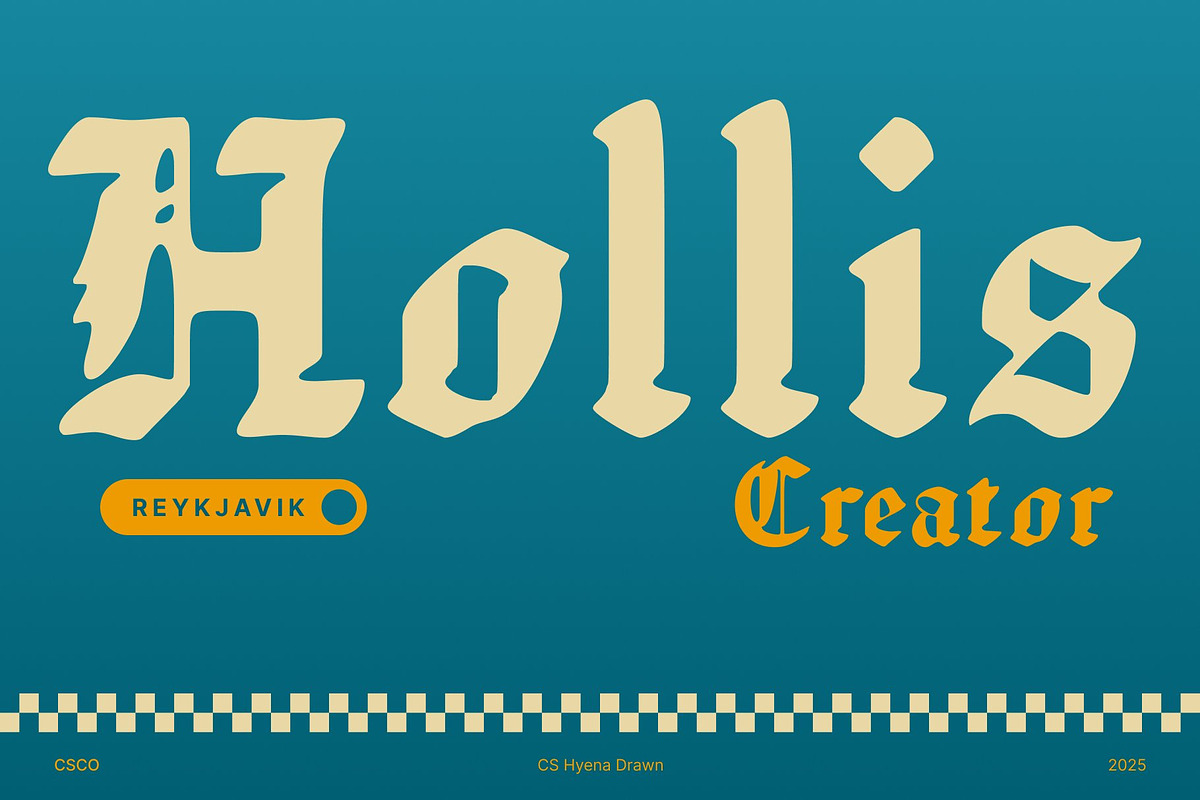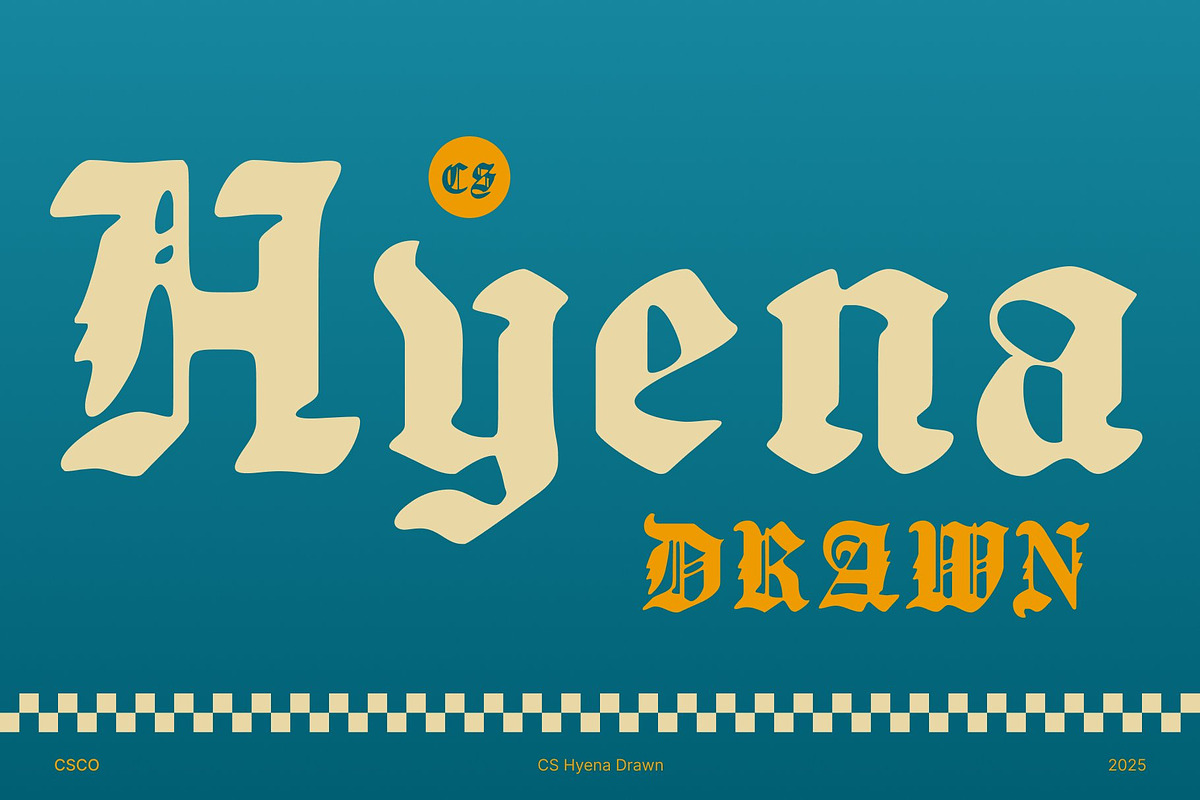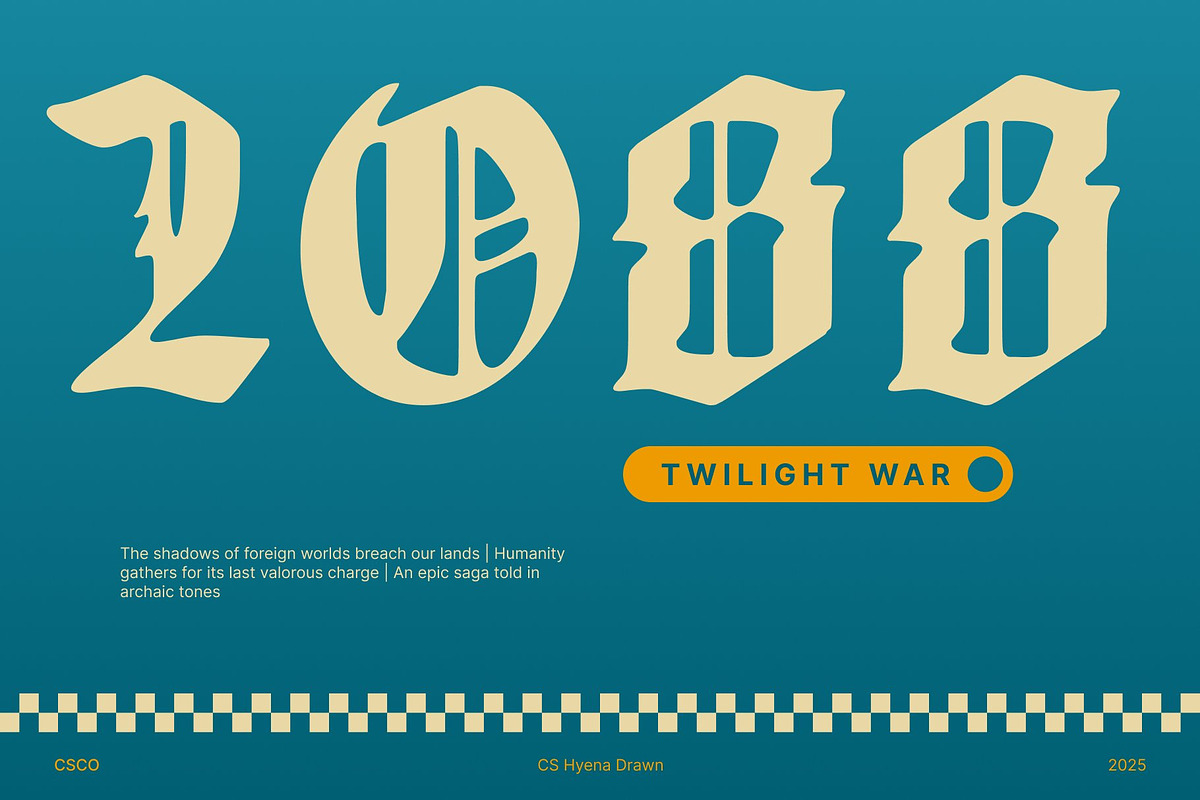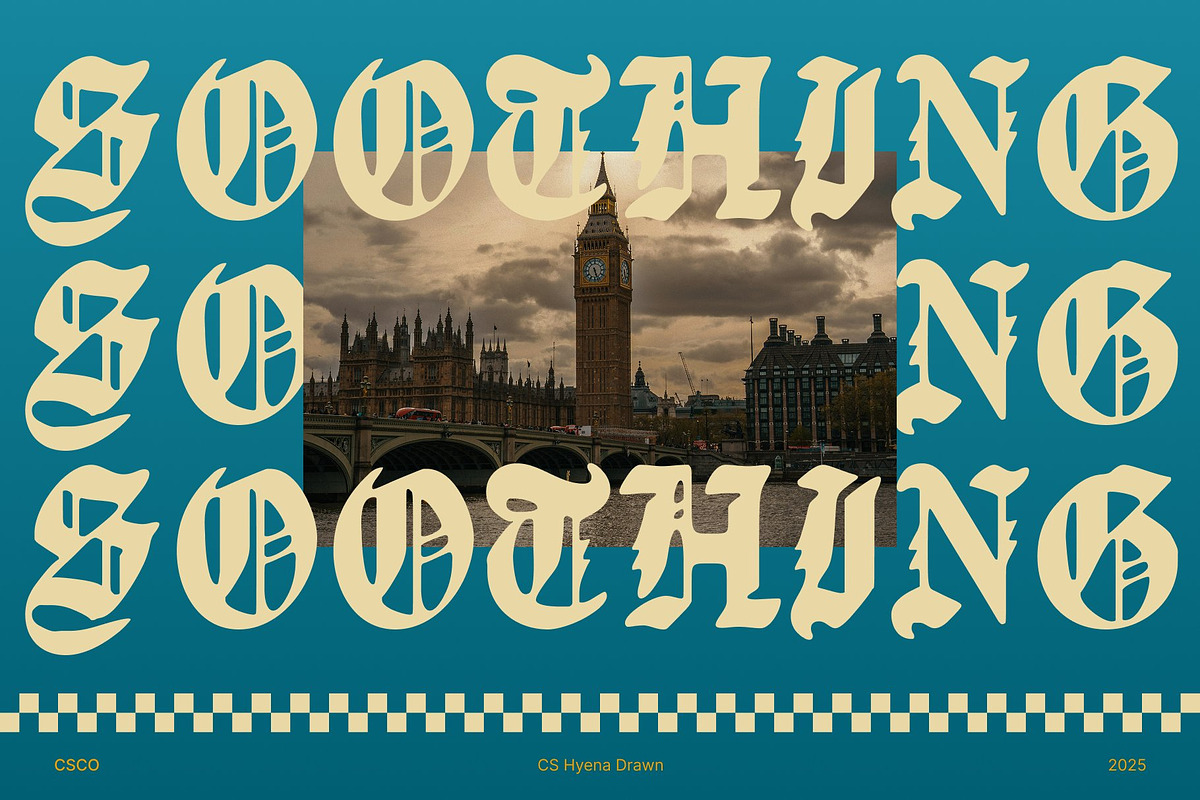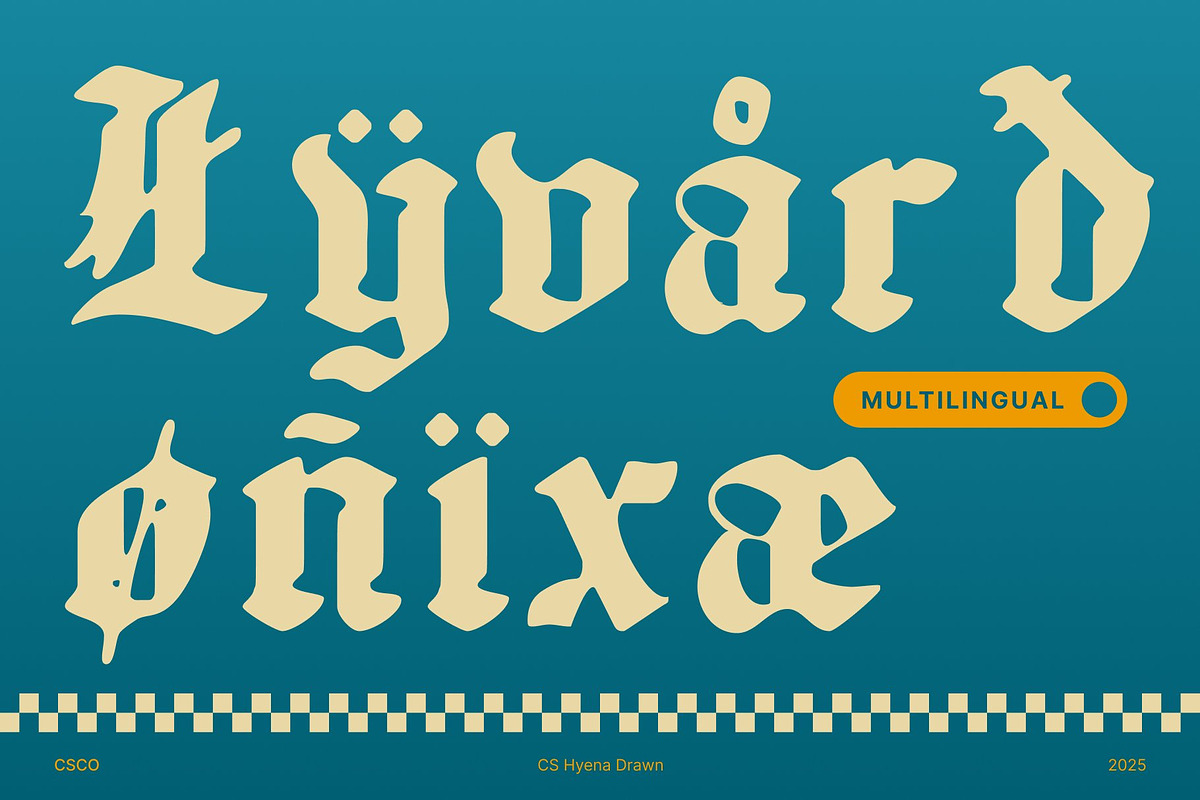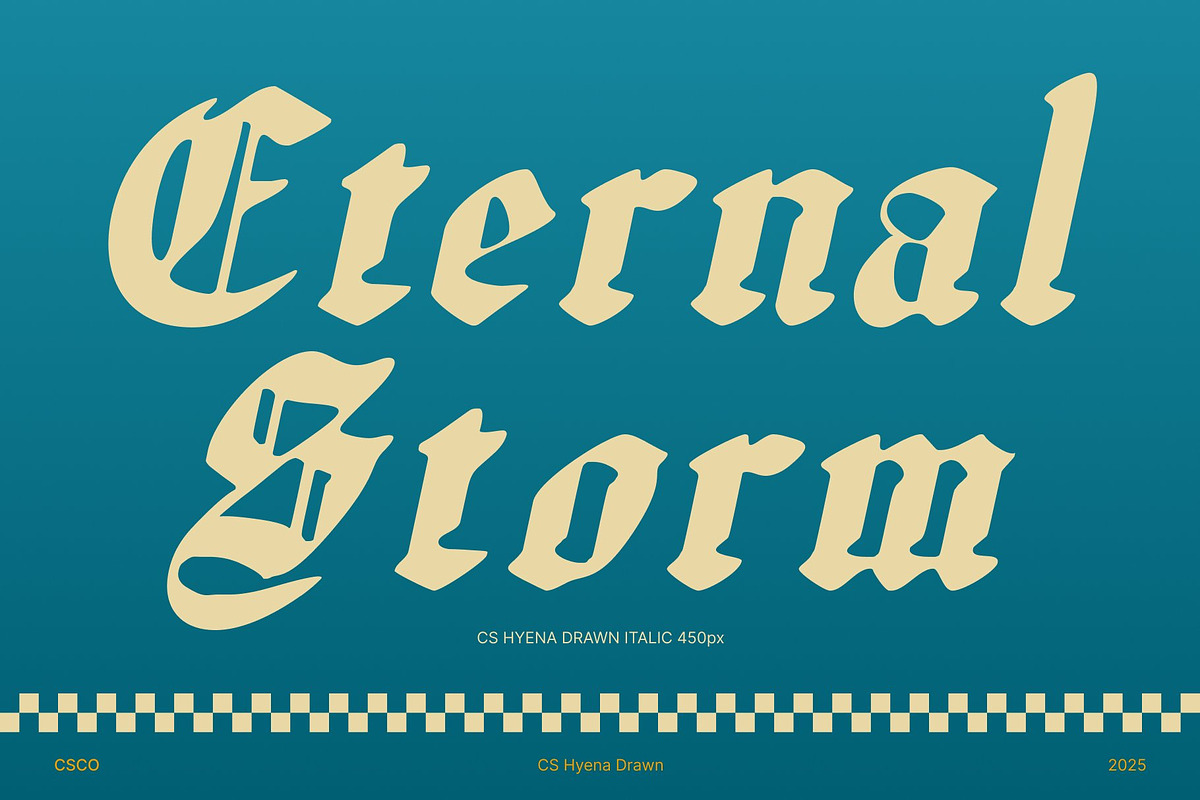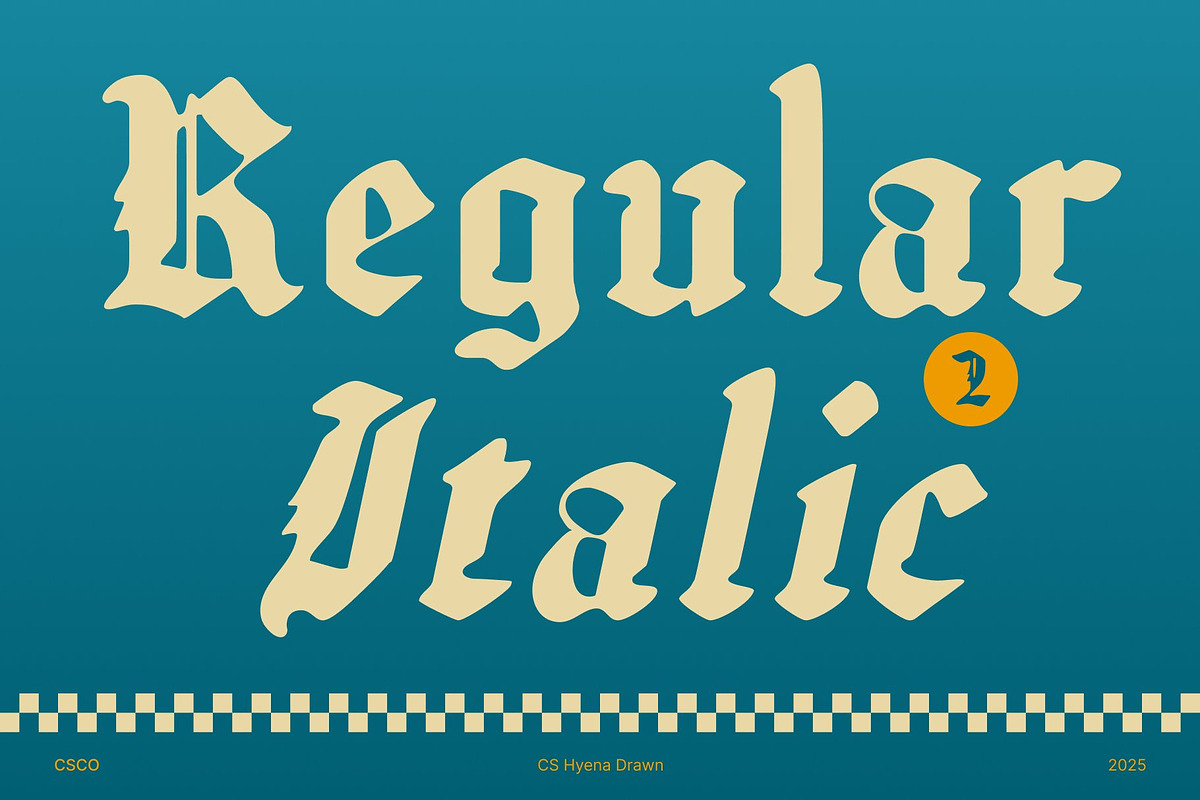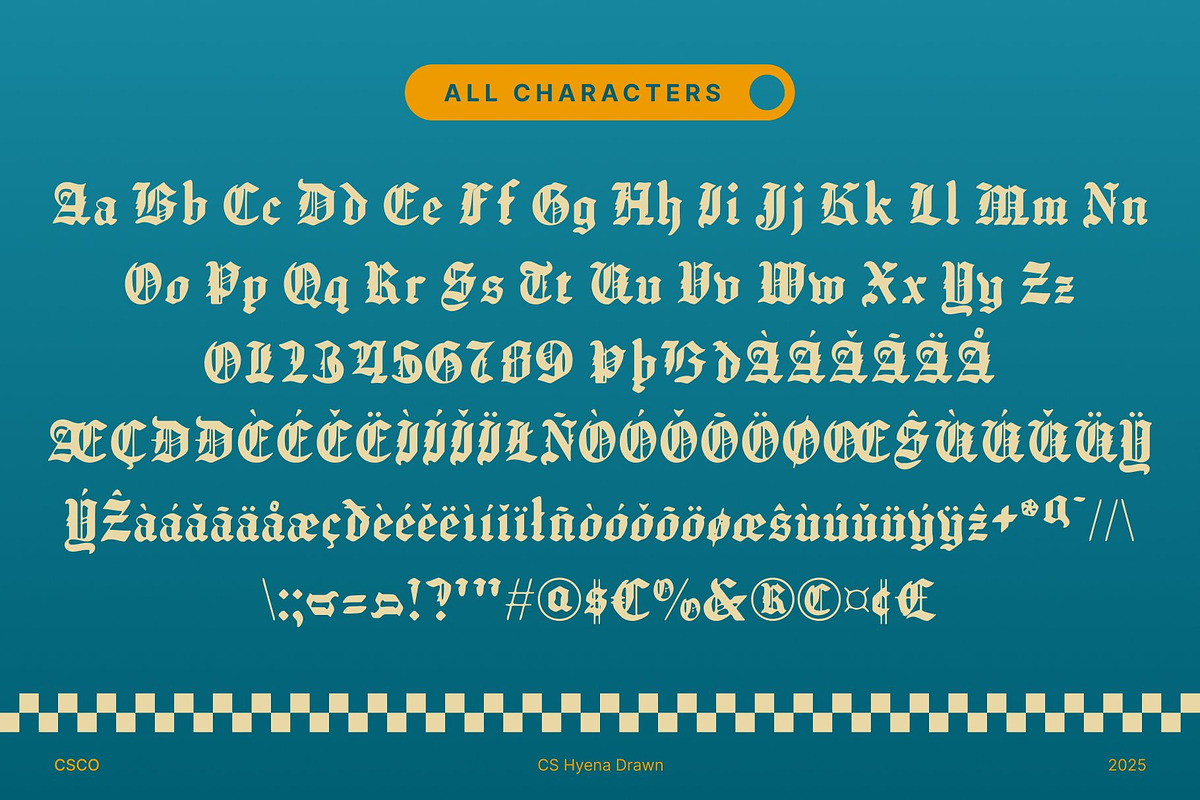
CS Hyena Drawn
CS Hyena Drawn – Decorative Blackletter with Handcrafted Dramatic Flair
Bold Blackletter Strokes with Dramatic Presence This is a decorative Blackletter font built to make a strong, commanding impression. Its bold, angular strokes convey authority and drama, while the classic Blackletter forms provide a timeless, historic elegance. Each letter captures attention, giving your designs a sophisticated yet edgy feel that resonates with tradition style.
Hand-Drawn Texture for Unique Artistic Character The drawn effect adds a handcrafted quality to this font, transforming each character into a piece of expressive artistry. Subtle textures and organic imperfections introduce depth and personality, softening the bold structure while maintaining visual strength. This handmade nuance makes the font feel dynamic and alive.
Perfect for Book Covers, Posters, and Branding This font thrives in creative, high-impact applications where visual storytelling is key. Its dramatic, bold forms are ideal for book covers, editorial layouts, posters, branding, and packaging that need a memorable, expressive edge. The combination of Blackletter elegance and hand-drawn artistry ensures each design feels both classic and unique.
A Typeface That Balances Tradition and Distinctiveness This font is designed for projects that demand personality and timeless style. Its decorative Blackletter structure paired with expressive drawn textures offers a striking balance of authority and creativity. Use this font to bring bold, handcrafted character to any visual project, delivering a classic yet unmistakably distinctive aesthetic.